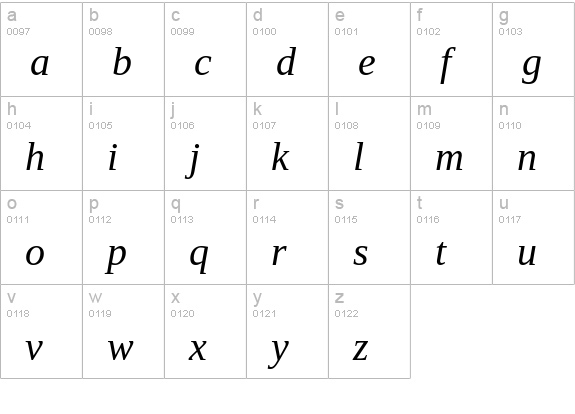
Liberation Serif Italic Font Details
Liberation Serif Italic is a distinctive, italic variant in the Liberation typeface family \xE2\x80\x94 well suited to design and typography projects.
Liberation Serif Italic font exudes elegance and sophistication with its sleek and stylish design. The slanted, italicized characters add a touch of flair to any text, making it ideal for adding emphasis or creating a sense of movement in your designs. The graceful curves and delicate serifs of Liberation Serif Italic make it a versatile choice for a wide range of projects, from formal invitations to modern advertising campaigns. What sets Liberation Serif Italic apart is that it is not only visually stunning but also freely available to download at FontsMarket.com. This means that you can elevate your designs with this beautiful font without any cost or hassle. Whether you're a professional designer looking to enhance your projects or a hobbyist wanting to add a touch of sophistication to your creations, Liberation Serif Italic is the perfect choice. Download it today and unleash your creativity with this exceptional typeface.